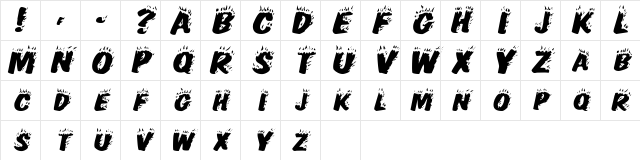
HellfireExtended Italic
Complete HellfireExtended Italic glyph index. Displaying only characters natively supported by HellfireExtended Italic font.
Design Context for HellfireExtended
HellfireExtended is a composed and adaptable typeface that performs quietly and consistently across a wide range of design contexts. The slanted form adds forward momentum and visual energy.
Pro Tip: Use HellfireExtended for emphasis, pull quotes, and subheadings where its slanted energy can add rhythm to the layout.